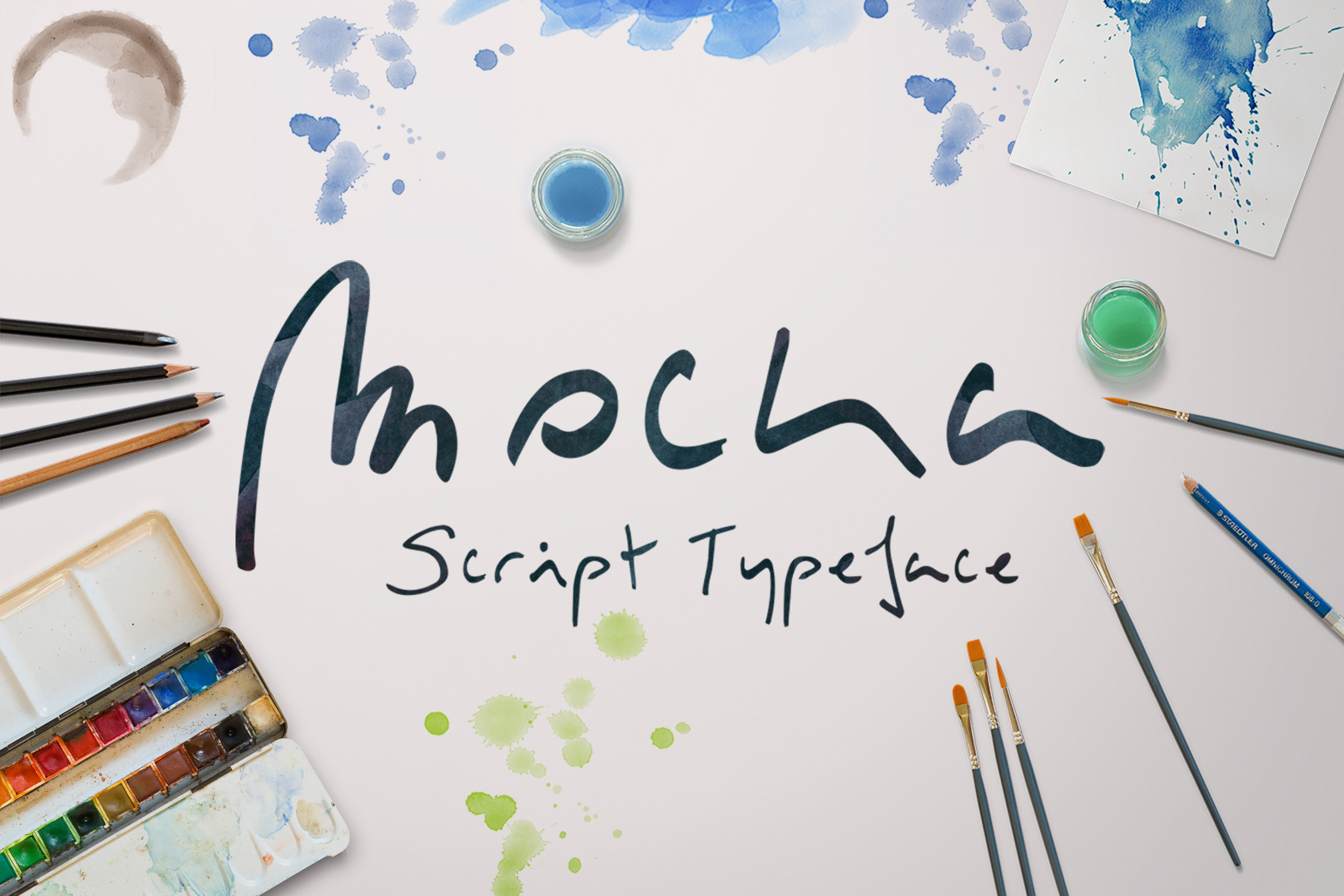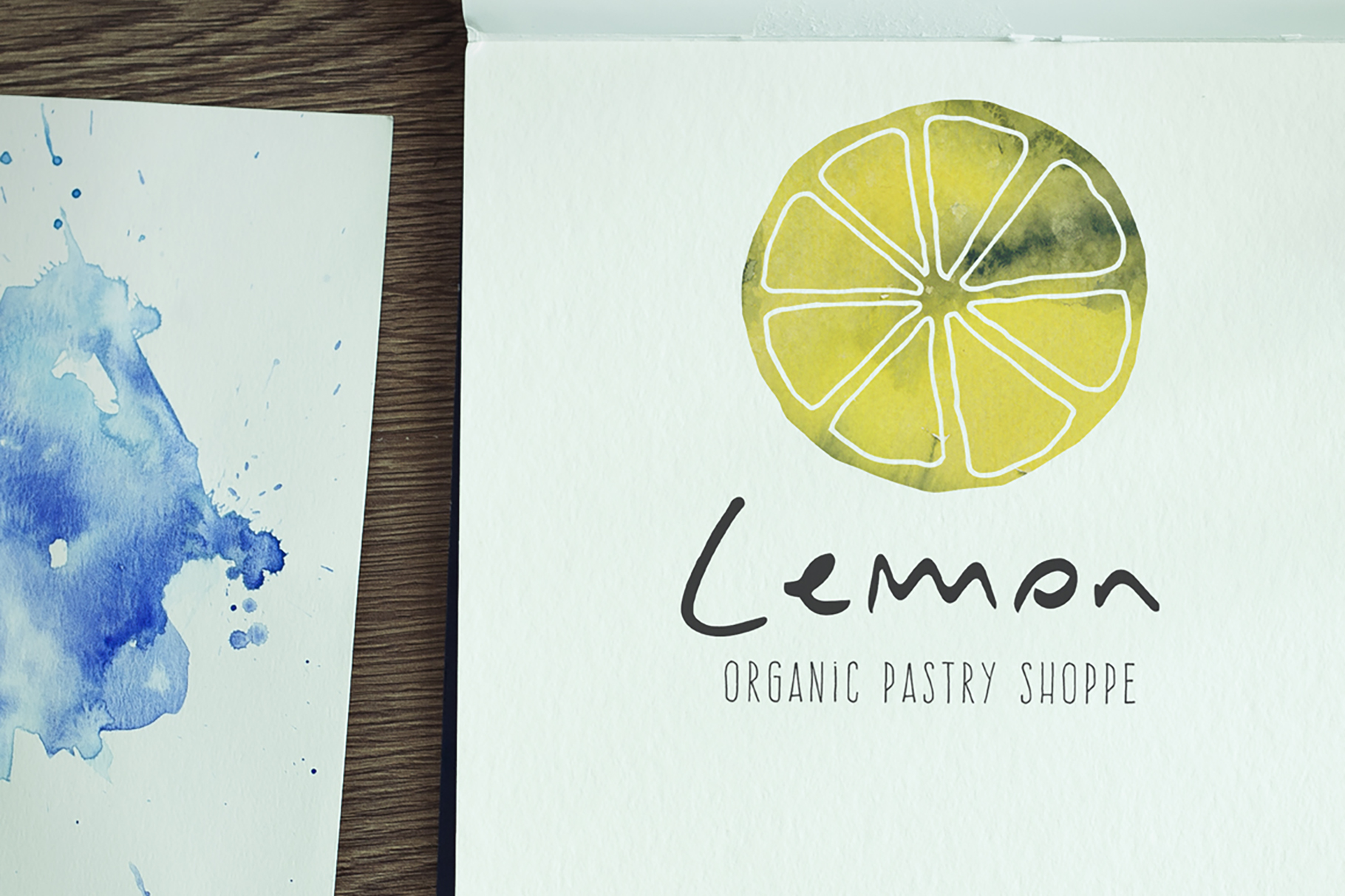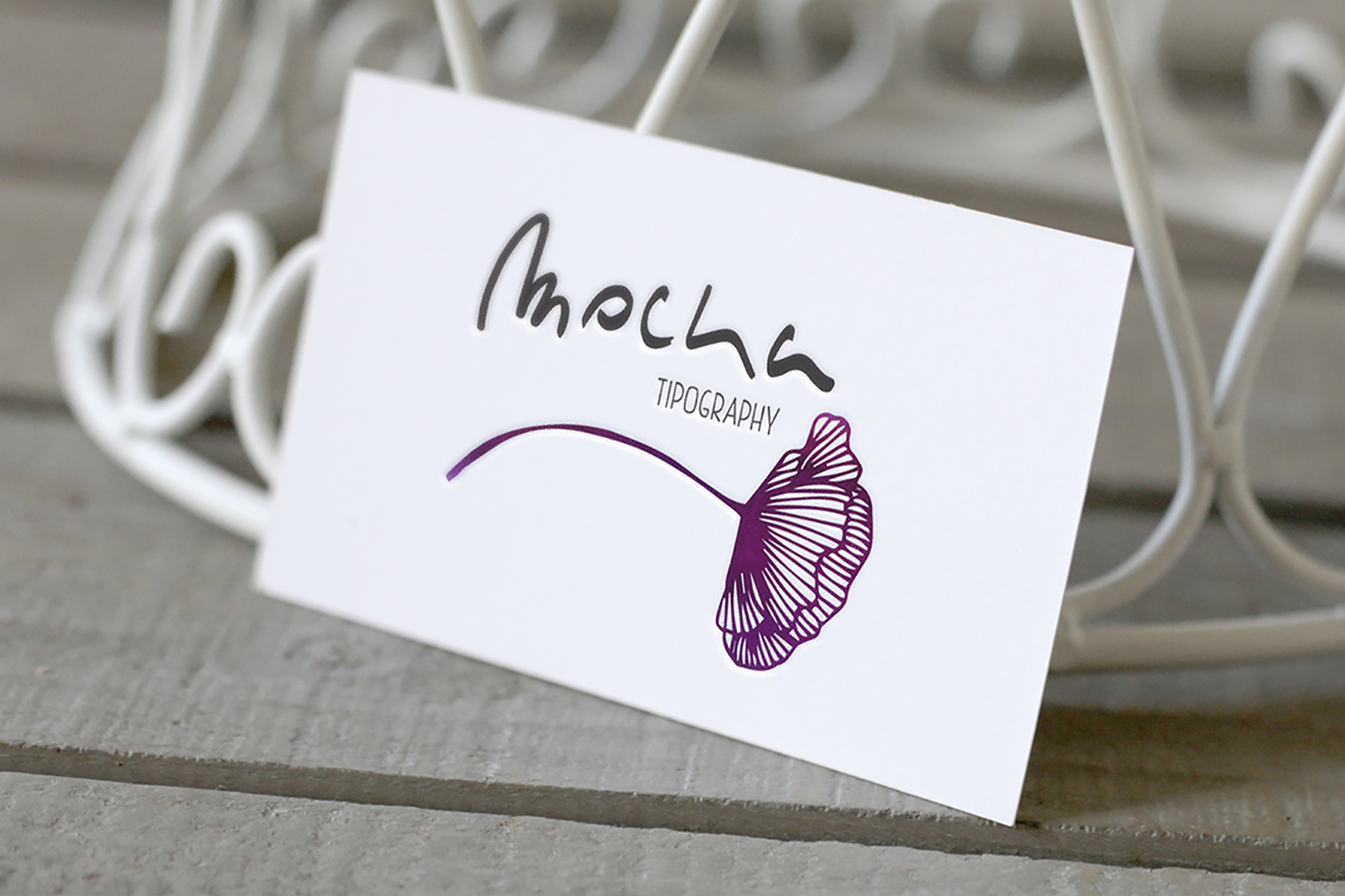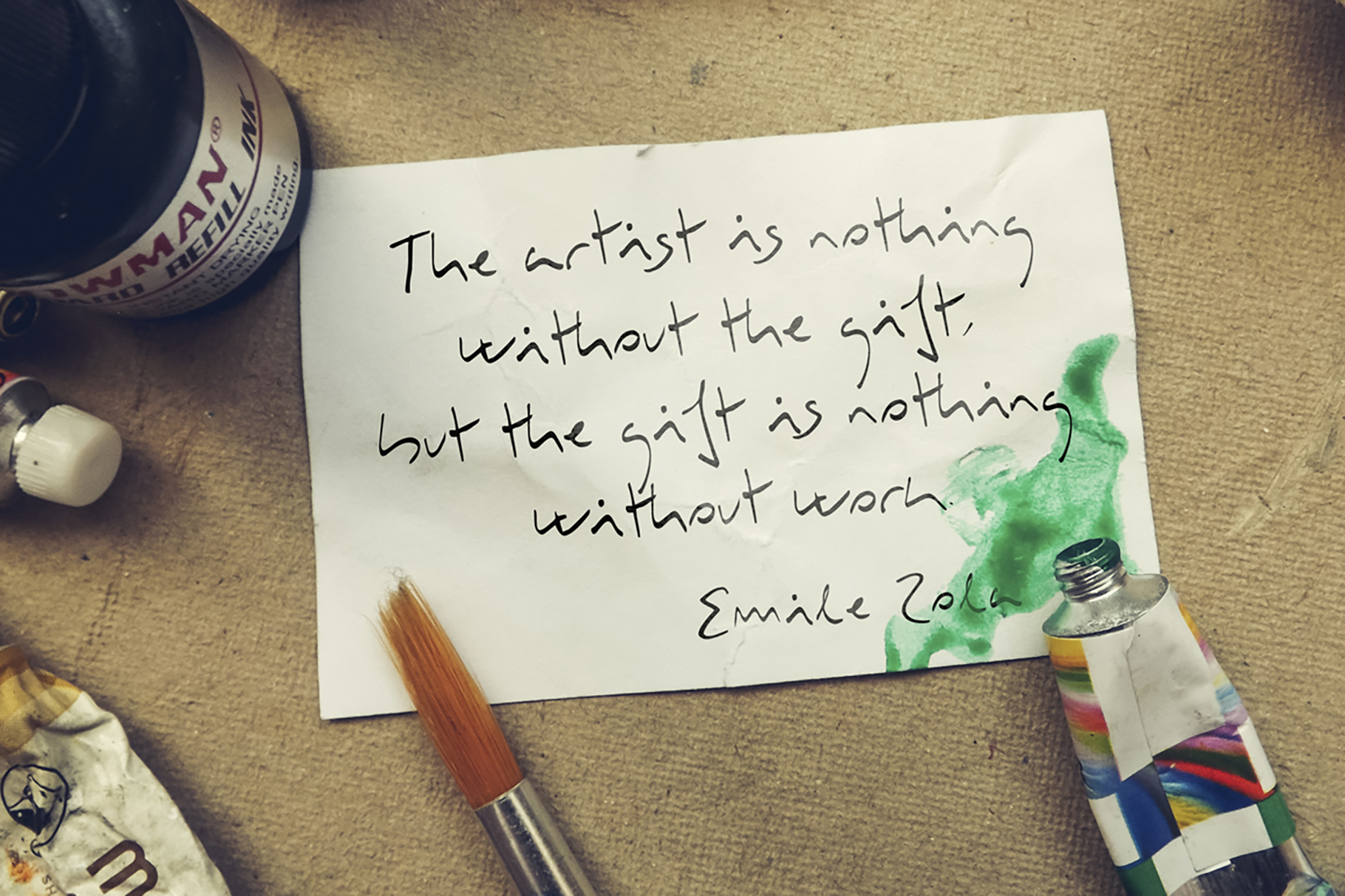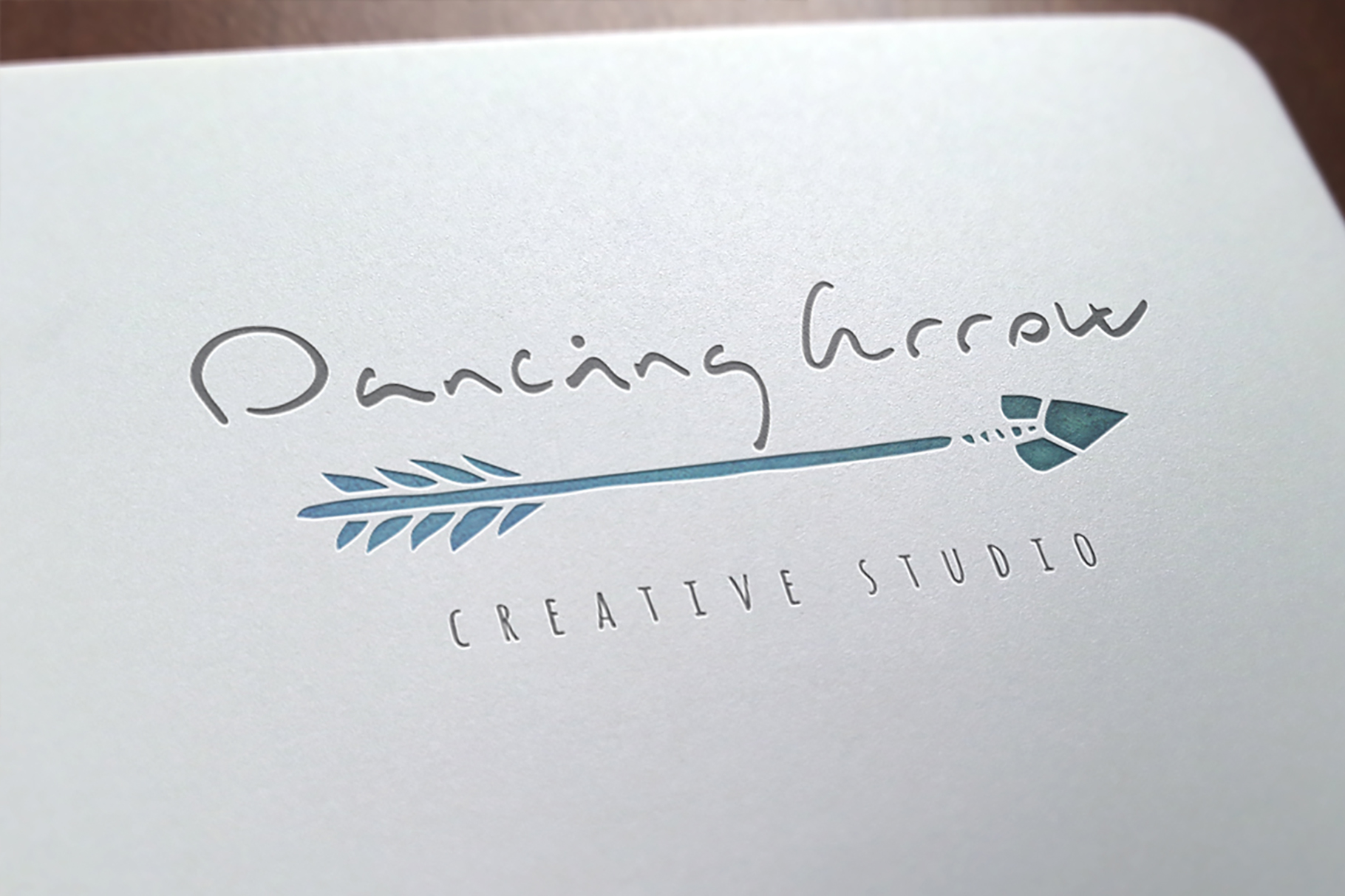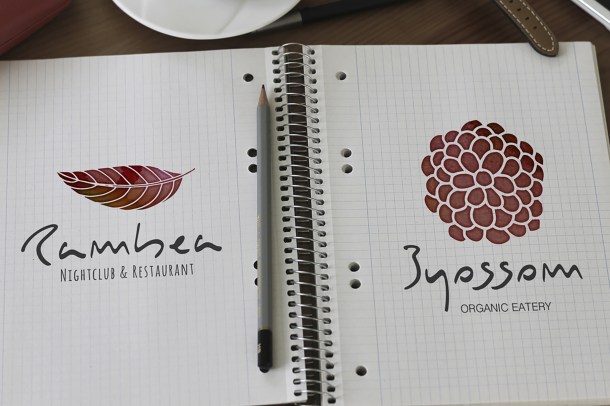
This handwritten font has a very unique look and feel. If you need to create something out of the ordinary but playful, Mocka is the font you have been looking for.